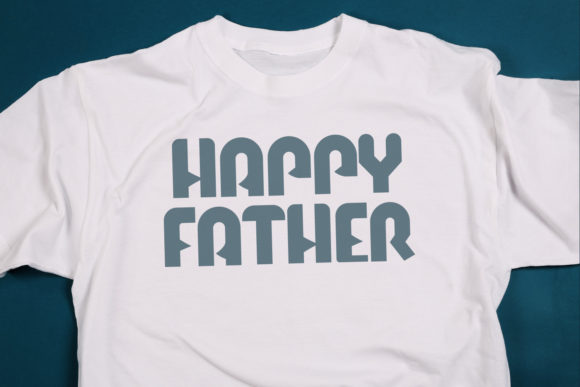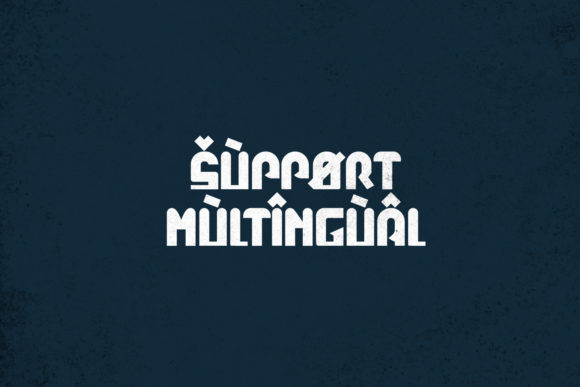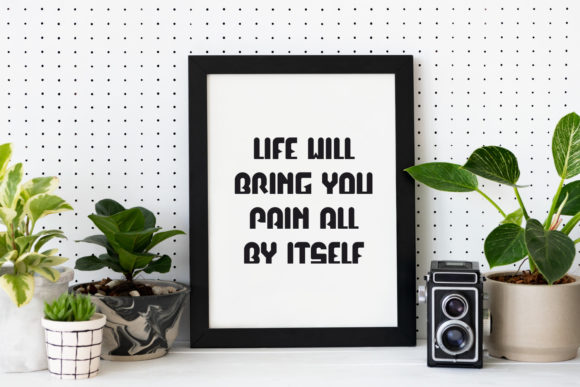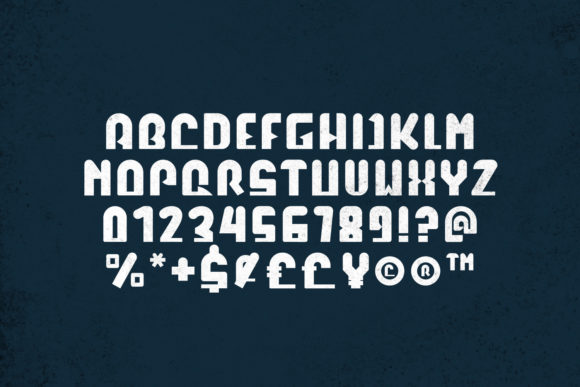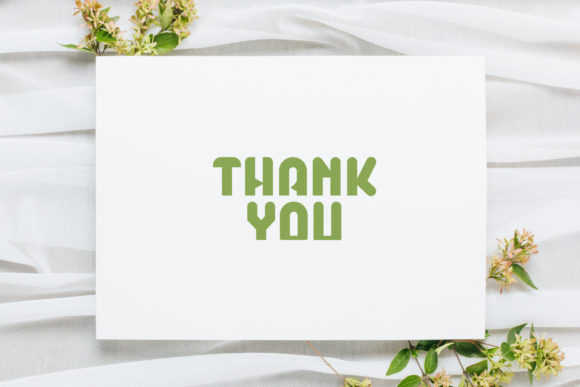
Gambino Font: The Ultimate Guide to a Cool, Fun, and Modern Display Font
Are you tired of using the same old fonts for your web designs, business cards, and other creative projects? Look no further than the Gambino font! This modern display font is taking the design world by storm with its unique and playful style. In this article, we’ll dive into the world of Gambino font, exploring its features, uses, and benefits for designers and crafters.
What is Gambino Font?
Gambino font is a cool, fun, and modern looking display font that is ideal for writing web designs, business cards, or pretty much anything else that requires a unique touch. Its distinctive style is perfect for making a statement and adding a personal touch to your designs. Whether you’re a professional designer or a crafter, Gambino font is a great addition to your font library.
Key Features of Gambino Font
- Unique and Playful Style: Gambino font boasts a one-of-a-kind design that is sure to grab attention.
- Modern and Fresh Look: Its modern look makes it perfect for contemporary designs and projects.
- Highly Versatile: Gambino font can be used for a wide range of projects, from web designs to business cards, posters, and more.
- Easily Readable: Despite its unique style, Gambino font is easy to read, making it perfect for body text and headlines.
Uses of Gambino Font
Gambino font is an incredibly versatile font that can be used for a variety of projects, including:
- Web Designs: Add a personal touch to your website with Gambino font, perfect for headings, titles, and more.
- Business Cards: Stand out from the crowd with a unique and modern business card design featuring Gambino font.
- Posters and Flyers: Create eye-catching posters and flyers with Gambino font, perfect for advertising and promotional materials.
- Social Media Graphics: Elevate your social media presence with custom graphics featuring Gambino font.
Benefits of Using Gambino Font
So, why choose Gambino font for your next project? Here are just a few benefits:
- Adds a Personal Touch: Gambino font helps you stand out from the crowd and add a unique touch to your designs.
- Increases Engagement: Its playful and modern style is sure to grab attention and increase engagement.
- Improves Brand Identity: Use Gambino font to create a consistent brand identity across all your marketing materials.
Tips for Using Gambino Font
To get the most out of Gambino font, here are a few tips:
- Use it Sparingly: Use Gambino font to highlight important information or add emphasis to your designs.
- Pair it with Other Fonts: Experiment with pairing Gambino font with other fonts to create a unique and visually appealing design.
- Adjust Font Size and Color: Play around with font size and color to create a design that pops.
In conclusion, Gambino font is a cool, fun, and modern display font that is perfect for designers and crafters looking to add a unique touch to their projects. Its versatility, readability, and distinctive style make it an excellent addition to any font library. Whether you’re creating web designs, business cards, or social media graphics, Gambino font is sure to elevate your designs and help you stand out from the crowd.